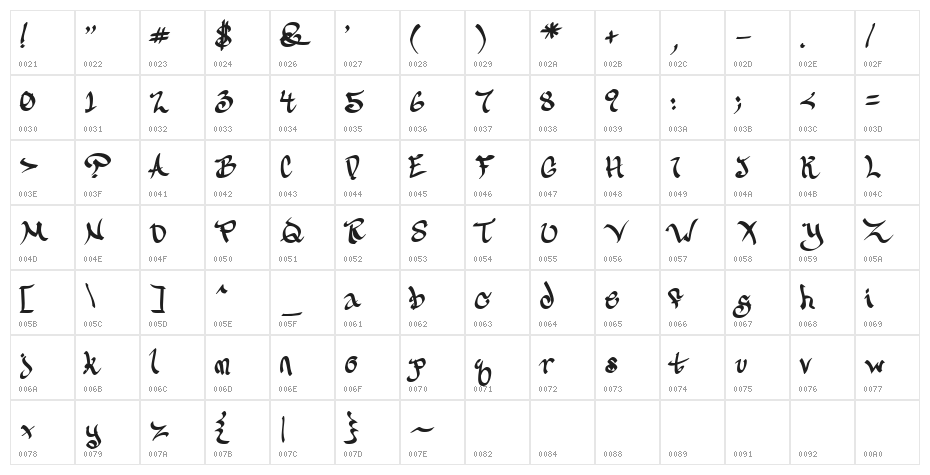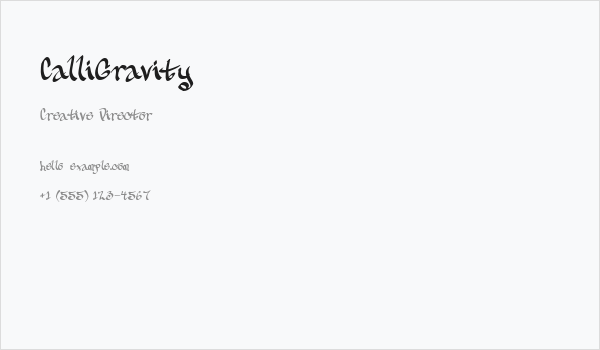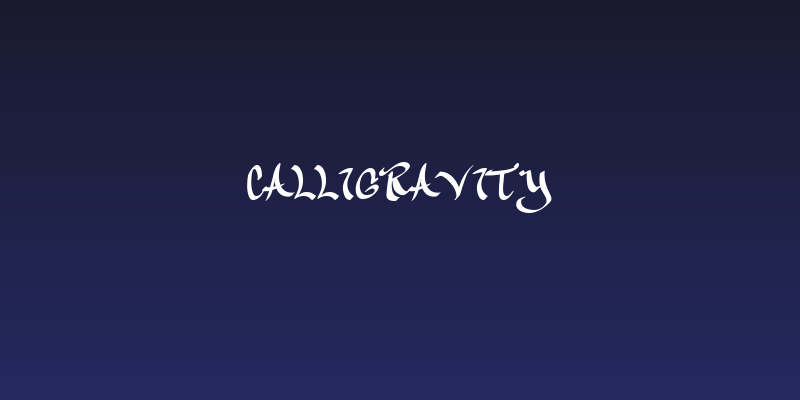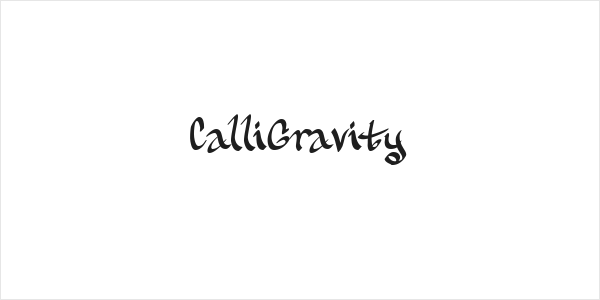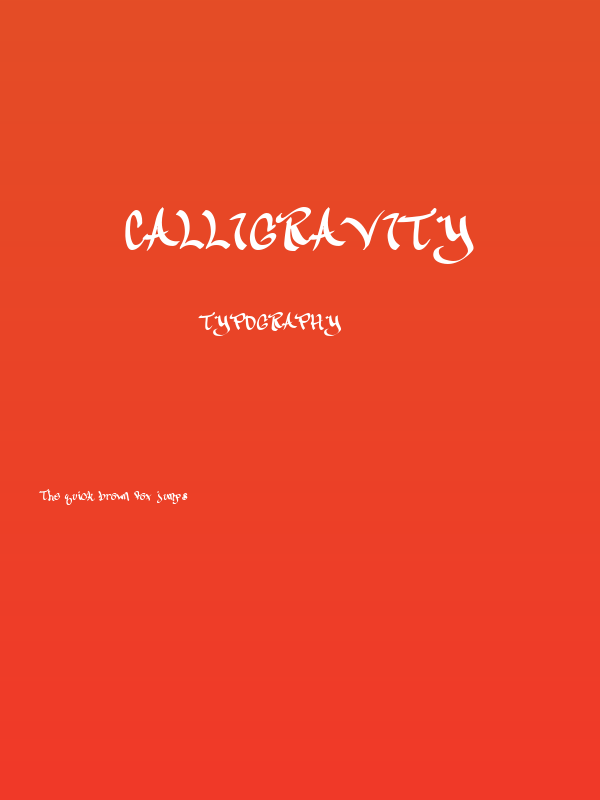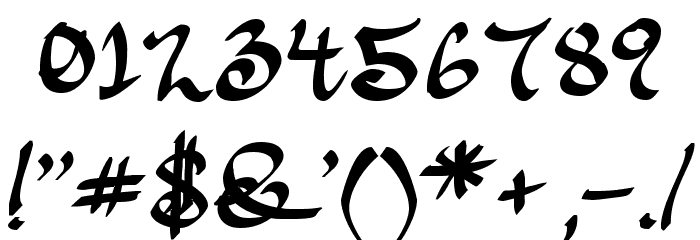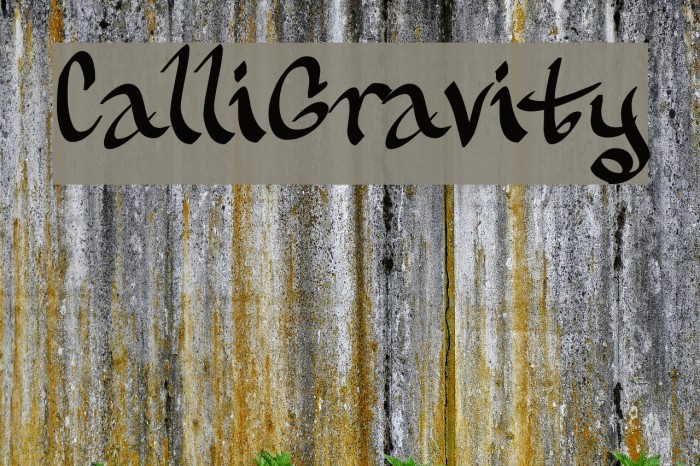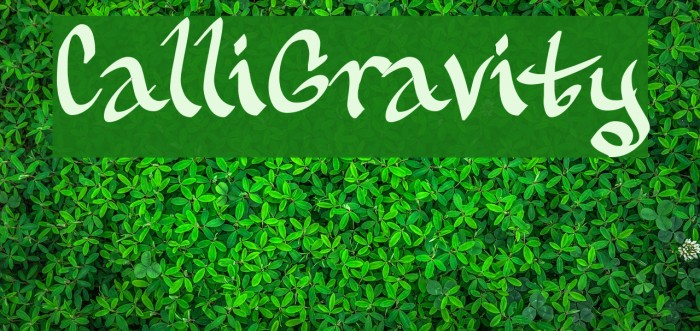
CalliGravity Font
CalliGravity Description
This font exhibits a bold, expressive style with a calligraphic flair. The characters are crafted with sweeping strokes and dynamic curves, giving it a sense of movement and elegance. The uppercase letters are particularly ornate, with flourishes that extend beyond the baseline and cap height, while the lowercase letters maintain a consistent flow, enhancing readability. The numerals and special characters are equally stylized, ensuring a cohesive look across all glyphs. This font is ideal for projects that require a touch of sophistication and artistic expression.
| Proposed Projects | Ideal for wedding invitations, branding, logo design, and artistic posters. |